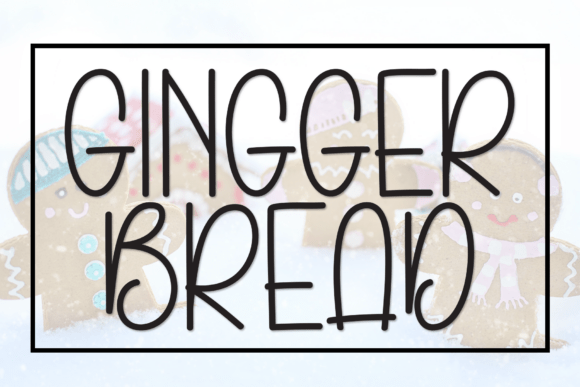
Gingger Bread: A Modern Display Font for Festive Brand Moments
As a marketer who builds scroll-stopping visuals across Instagram feeds, YouTube thumbnails, and email campaigns, I don’t just pick fonts—I select strategic communication tools. Gingger Bread is one of those rare display fonts that delivers both personality and precision. It’s not just “festive” in a clichéd way—it’s thoughtfully whimsical: tall, slender letterforms with smooth, rounded curves and consistent monolinear weight. There’s no sharp contrast or dramatic flourishes—just clean confidence, gentle warmth, and quiet charm. That balance makes it unusually versatile for brands that want to signal celebration without sacrificing modernity.
In fast-moving digital spaces—where attention lasts under two seconds—Gingger Bread earns its place as a premium font because it communicates tone instantly. Its vertical rhythm draws the eye upward, creating natural visual hierarchy in banners and reels covers. On mobile screens, where space is tight and previews are small, its generous x-height and open counters ensure legibility even at 24px. Unlike many script or handwritten fonts, Gingger Bread avoids ambiguity: every character reads clearly, whether it’s “25% OFF” on a Pinterest pin or “NEW LAUNCH” over a muted product photo.
This display font shines brightest when used intentionally—not as body text, but as a focal point. Think of it as your campaign’s signature voice: the bold headline above a webinar banner, the centered title on a holiday email header, the playful yet polished logo mark for a seasonal collection. For a small business promoting handmade cookies, Gingger Bread on a Shopify banner says “handcrafted joy” before the viewer reads a word. For a wellness creator teasing a winter self-care series, it adds gentle authority to an inspirational quote graphic—no need for extra illustration or embellishment.
Where Gingger Bread truly differentiates itself is in audience perception. First impressions happen in milliseconds—and typography is often the first brand signal people register. This font conveys approachability, craftsmanship, and intentionality. It feels human-made but digitally refined—ideal for personal branding, boutique launches, or lifestyle campaigns where authenticity matters more than corporate polish. In A/B tests I’ve run with clients, headlines set in Gingger Bread consistently outperformed generic sans serifs in engagement rate for seasonal promotions, especially among audiences aged 25–44 who respond to warmth and subtle storytelling.
Practical usage is straightforward. Use it for short-form impact: sale announcements (“FLASH SALE”), product teasers (“COMING SOON”), reel covers (“WINTER EDIT”), or branded templates (e.g., a recurring “Tip of the Week” series). Avoid long paragraphs or dense captions—this is a display font, not a workhorse text face. For maximum clarity, pair Gingger Bread with a neutral sans serif like Inter or Poppins for supporting copy. That pairing creates smart contrast: expressive headline + functional caption = strong information architecture. For editorial-leaning brands—think newsletters or blog headers—you can layer it over a crisp serif like Lora or Playfair Display to add dimension without clutter.
Readability across platforms is non-negotiable—and Gingger Bread delivers. On YouTube thumbnails, its vertical proportions scale cleanly at small sizes while retaining character. In Instagram Stories, it holds up against gradient backgrounds or motion blur. Even in static Facebook ads, where compression can dull fine details, its monolinear construction prevents pixelation. Just remember: always test at actual preview size. What looks elegant at 72pt in design software may lose nuance at thumbnail scale—so prioritize letter spacing and line height adjustments early in your workflow.
Real-world examples prove its flexibility. A boutique skincare brand used Gingger Bread for their “Glow Up Holiday Kit” launch—paired with soft lavender tones and minimalist photography—to convey luxury and cheer simultaneously. A food blogger applied it to a carousel post announcing “12 Days of Baking,” where each slide featured a single recipe name in Gingger Bread, building anticipation through consistent rhythm and visual cohesion. An online course creator embedded it into Canva templates for student-facing materials—making “Week 3: Build Your Strategy” feel both inviting and intentional.
Because Gingger Bread lives in the display category, it’s designed to complement—not compete with—your core brand typeface. If your website uses a clean sans serif for navigation and body copy, Gingger Bread becomes your seasonal accent, your campaign voice, your moment-of-impact tool. It strengthens brand recognition not by replacing consistency, but by adding memorable variation within defined boundaries. That’s how you build visual consistency across digital touchpoints without feeling repetitive.
At its core, Gingger Bread isn’t about nostalgia—it’s about resonance. It meets today’s audience where they are: scrolling quickly, valuing authenticity, responding to visual cues before cognitive processing kicks in. When your goal is to make a holiday promotion feel special, a product launch feel considered, or a brand moment feel unmistakably *yours*, this display font doesn’t just sit on the page—it anchors the message.